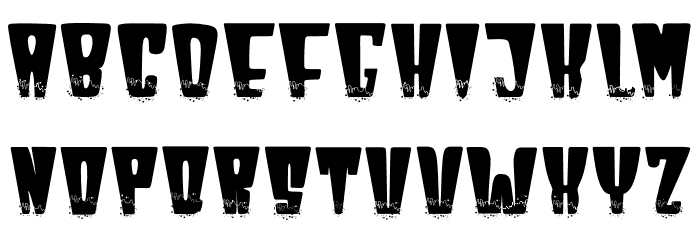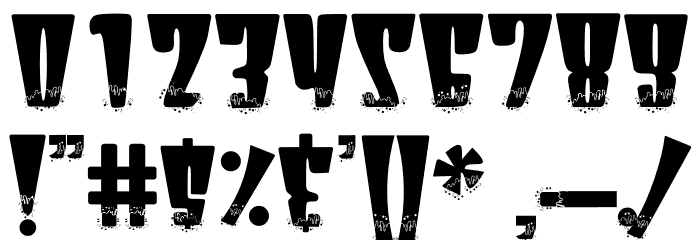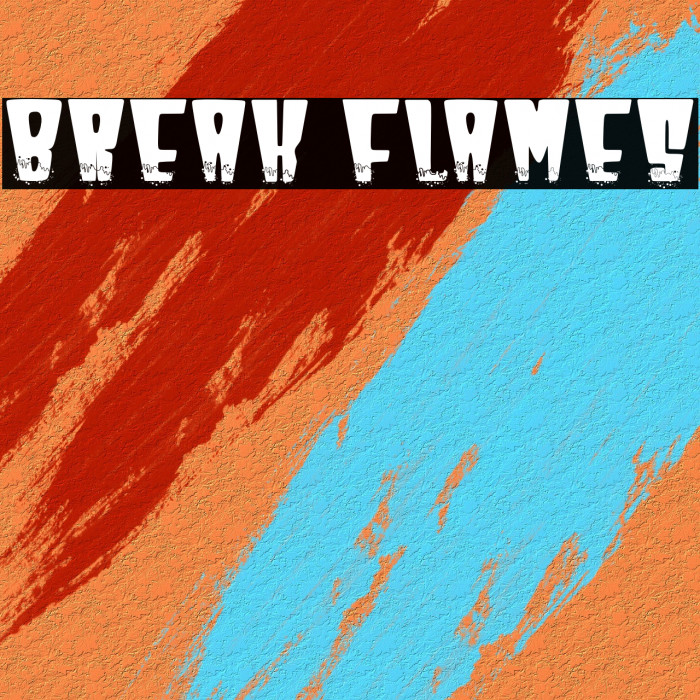
Break Flames Font
This font features a bold and dynamic design with a distressed, grunge effect that gives it a fiery, energetic appearance. The uppercase letters are robust and angular, with a unique texture that mimics the look of flames or smoke. The numbers and special characters maintain this rugged style, making the font ideal for creating a dramatic impact. Its boldness and distinctive character make it stand out, perfect for projects that require a strong visual presence. The font's style is reminiscent of urban or industrial themes, adding a sense of edginess and intensity.
A bold, distressed font with a fiery, grunge effect.
- Proposed Projects: Ideal for posters, album covers, event flyers, and branding that requires a bold, edgy look.